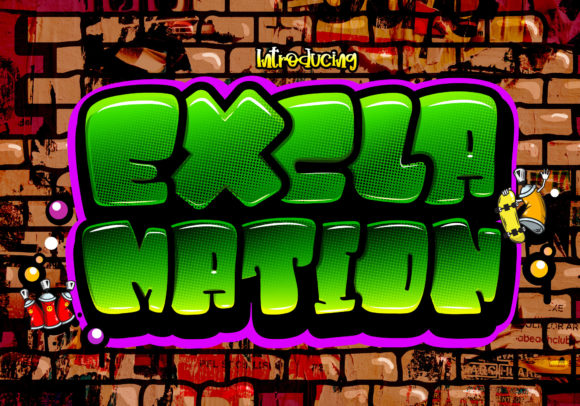
Exclamation Font: The Ultimate Graffiti-Styled Display Font for Creative Projects
Are you tired of using the same old fonts for your creative projects? Do you want to add a touch of playfulness and excitement to your designs? Look no further than the Exclamation Font, a graffiti-styled, chunky lettered display font that’s sure to make your projects stand out.
What is Exclamation Font?
Exclamation Font is a unique and eye-catching font that’s perfect for creative projects that require a bold and playful touch. With its graffiti-styled, chunky lettering, this font is sure to add a burst of energy and excitement to any design. Whether you’re working on a logo, poster, or social media graphic, Exclamation Font is the perfect choice.
Key Features of Exclamation Font
- Graffiti-styled lettering: Exclamation Font features a unique graffiti-styled lettering that’s perfect for creative projects that require a bold and playful touch.
- Chunky lettering: The font’s chunky lettering makes it easy to read and adds a touch of playfulness to any design.
- Display font: Exclamation Font is a display font that’s perfect for headlines, titles, and other creative projects that require a bold and eye-catching font.
Why Use Exclamation Font?
Benefits of Using Exclamation Font
- Adds a touch of playfulness: Exclamation Font adds a touch of playfulness and excitement to any design, making it perfect for creative projects that require a bold and eye-catching font.
- Improves readability: The font’s chunky lettering makes it easy to read, even from a distance.
- Increases creativity: Exclamation Font’s unique graffiti-styled lettering can help inspire creativity and add a fresh perspective to your designs.
- Versatile: Exclamation Font can be used for a wide range of creative projects, from logos and posters to social media graphics and more.
How to Use Exclamation Font
Tips for Using Exclamation Font
- Use it for headlines and titles: Exclamation Font is perfect for headlines and titles that require a bold and eye-catching font.
- Pair it with other fonts: Exclamation Font can be paired with other fonts to create a unique and visually appealing design.
- Experiment with colors: Exclamation Font can be used with a wide range of colors to add a touch of playfulness and excitement to your designs.
Examples of Exclamation Font in Use
Examples of Exclamation Font
- Logos: Exclamation Font can be used to create a bold and eye-catching logo that’s sure to stand out.
- Posters: Exclamation Font is perfect for posters that require a bold and attention-grabbing font.
- Social media graphics: Exclamation Font can be used to create social media graphics that are sure to grab attention.
In conclusion, Exclamation Font is a unique and eye-catching font that’s perfect for creative projects that require a bold and playful touch. With its graffiti-styled, chunky lettering, this font is sure to add a burst of energy and excitement to any design. Whether you’re working on a logo, poster, or social media graphic, Exclamation Font is the perfect choice.